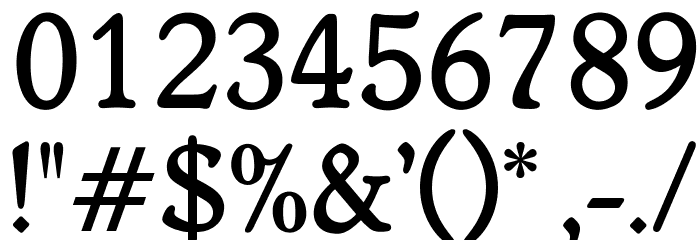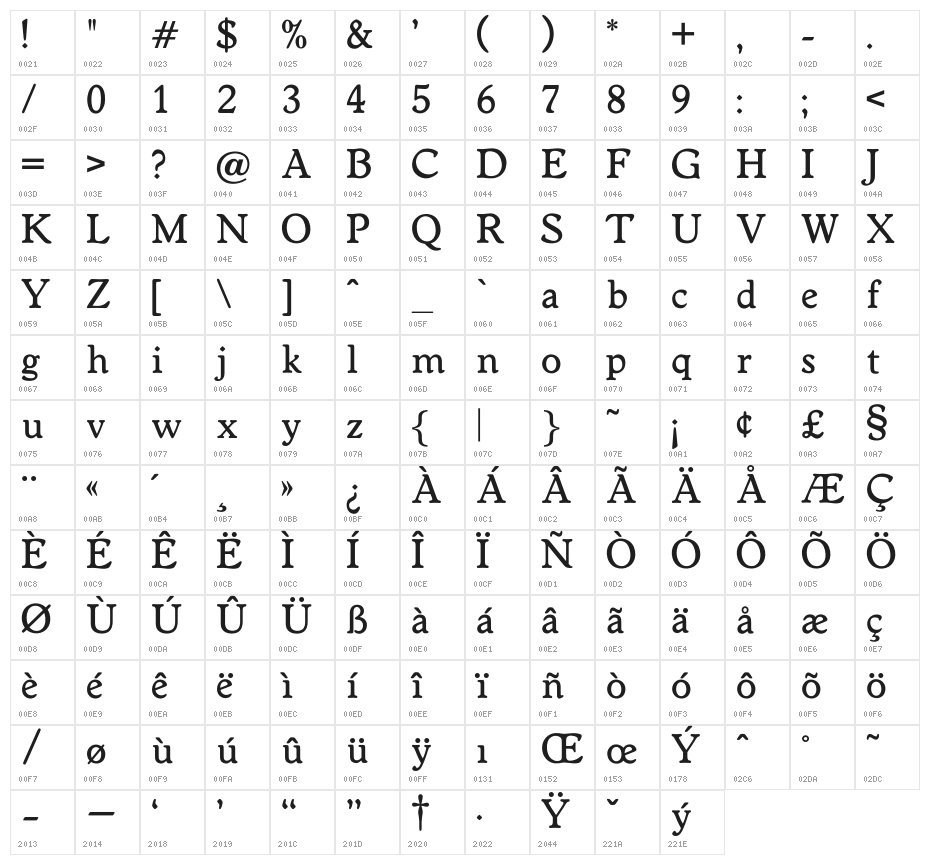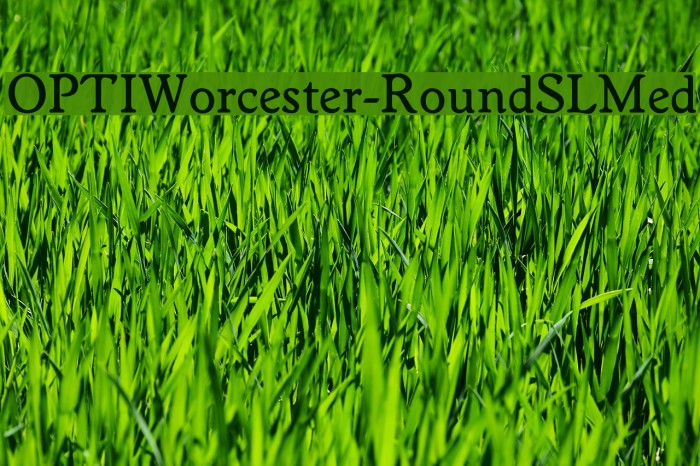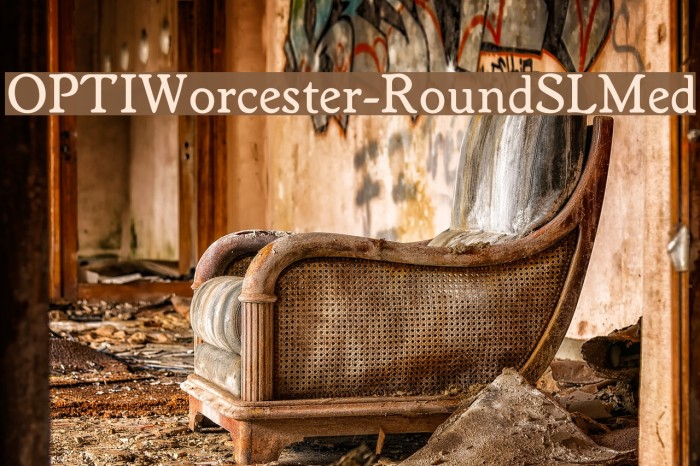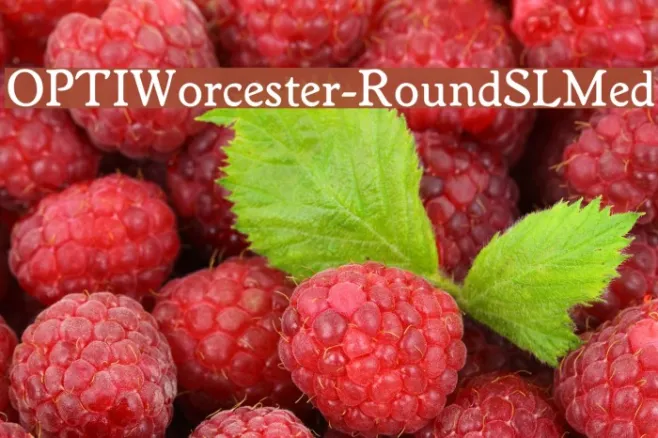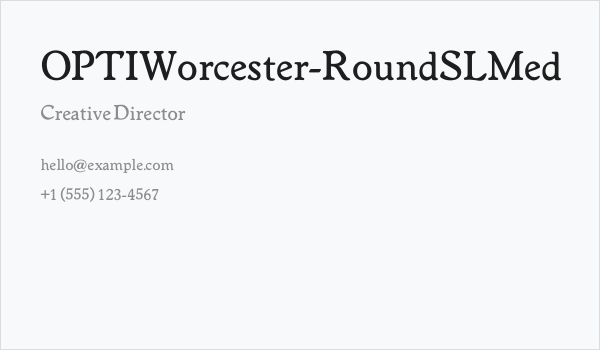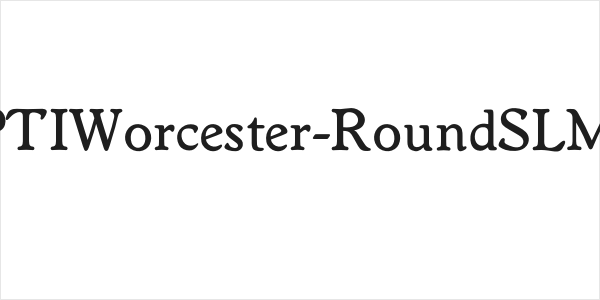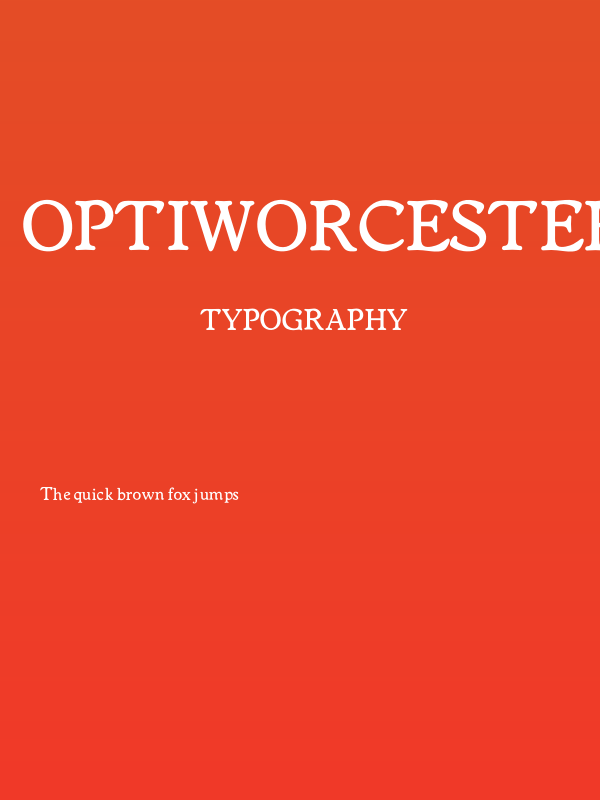
OPTIWorcester-RoundSLMed Font
OPTIWorcester-RoundSLMed Description
This font features a classic serif style with rounded edges, giving it a softer and more approachable appearance. The characters are well-proportioned, with a moderate contrast between thick and thin strokes, enhancing readability while maintaining an elegant look. The uppercase letters are bold and commanding, while the lowercase letters retain a gentle, flowing quality. The numerals are clear and distinct, making them suitable for various applications. Special characters are included, providing versatility for different design needs. Overall, this font combines traditional serif elements with a modern twist, making it suitable for a wide range of projects.